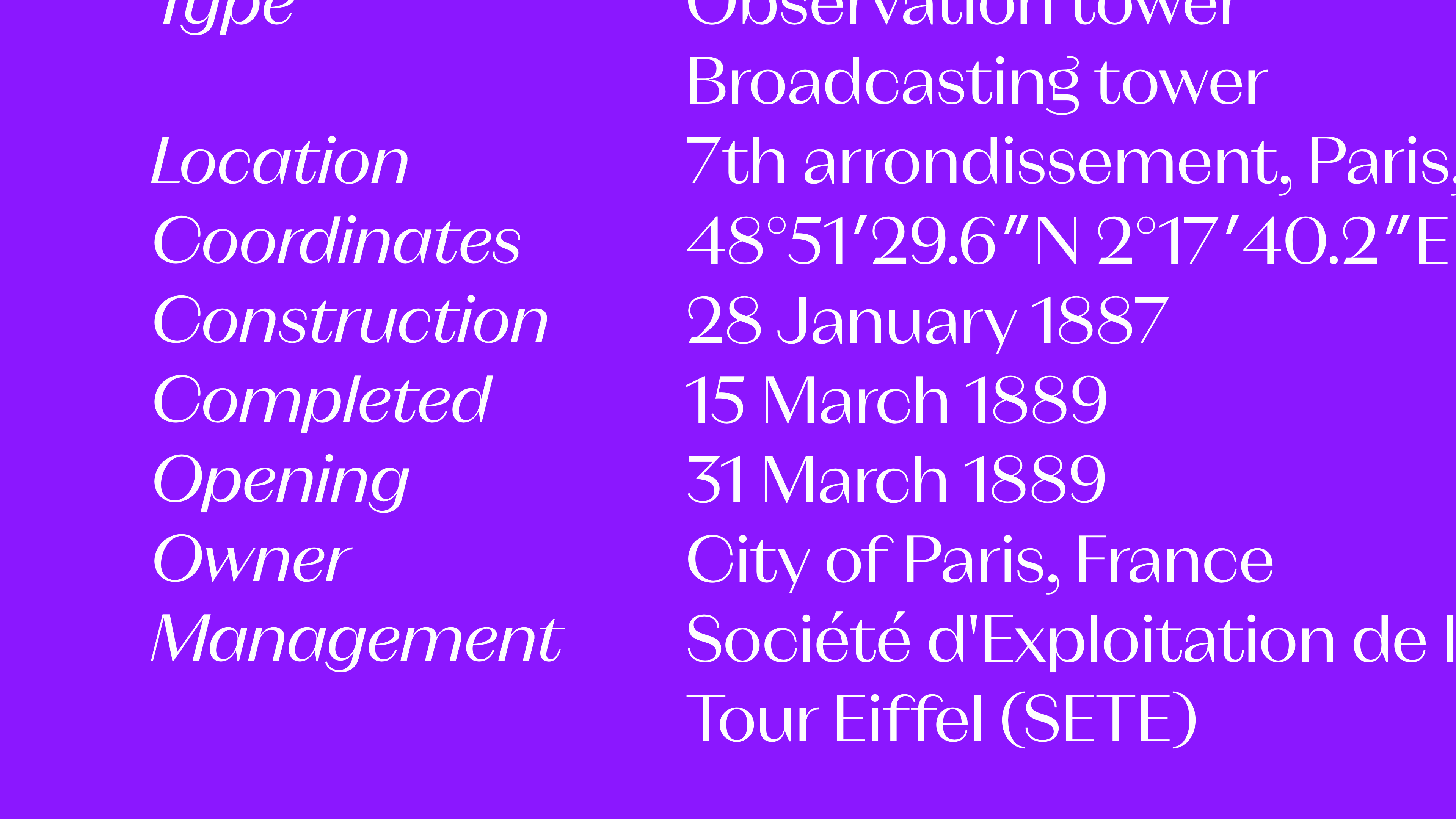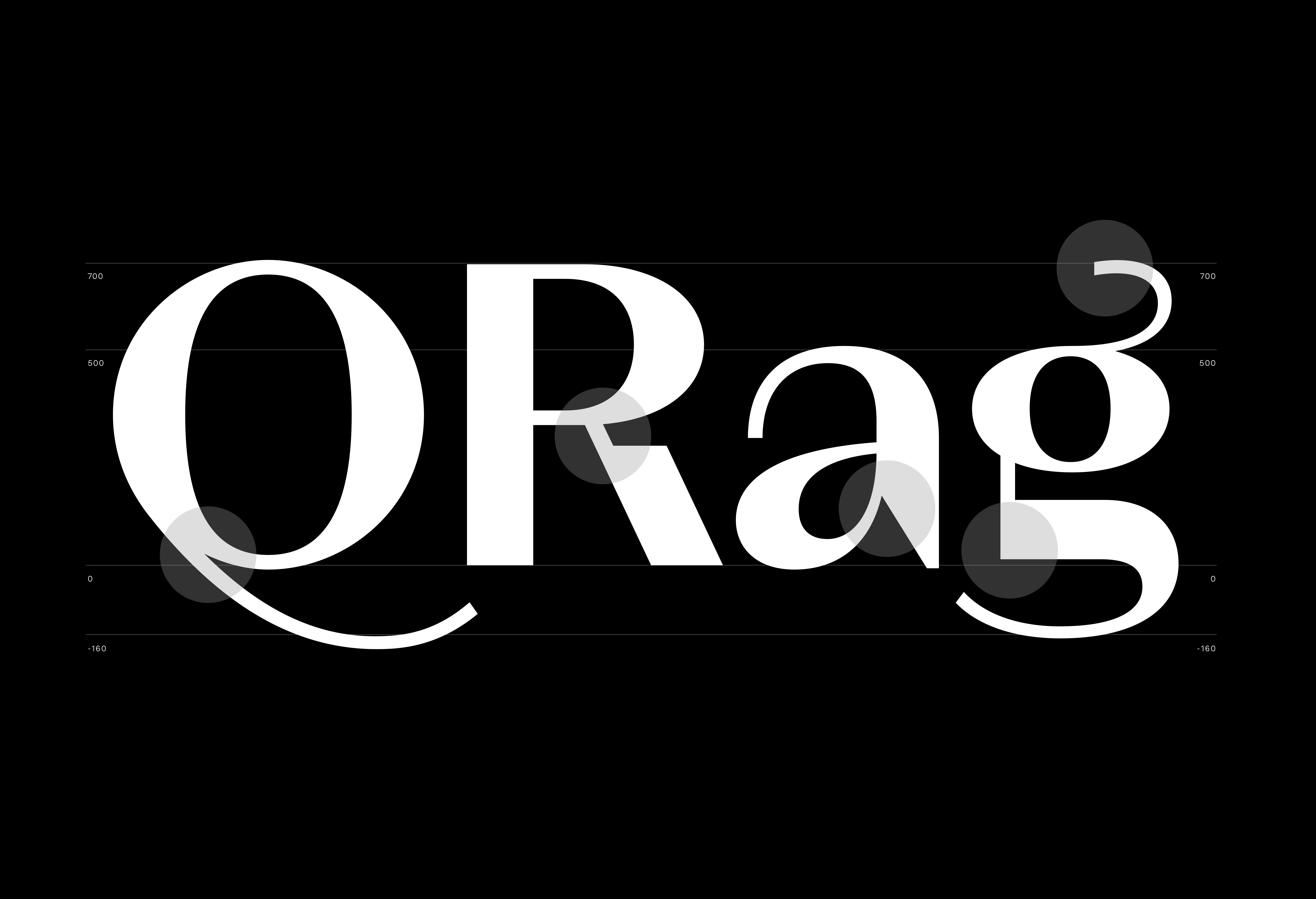
Neue Magnat
Imagine the 1920s in Berlin. Art Nouveau is at its peak. The upper 100 of the capital celebrate unconstrained and splendidly. This was the starting point for the Magnat family. It does not try to hide its high society background — rather the opposite — it celebrates it without restraint. It is a VIP in the midst of the proletariat.